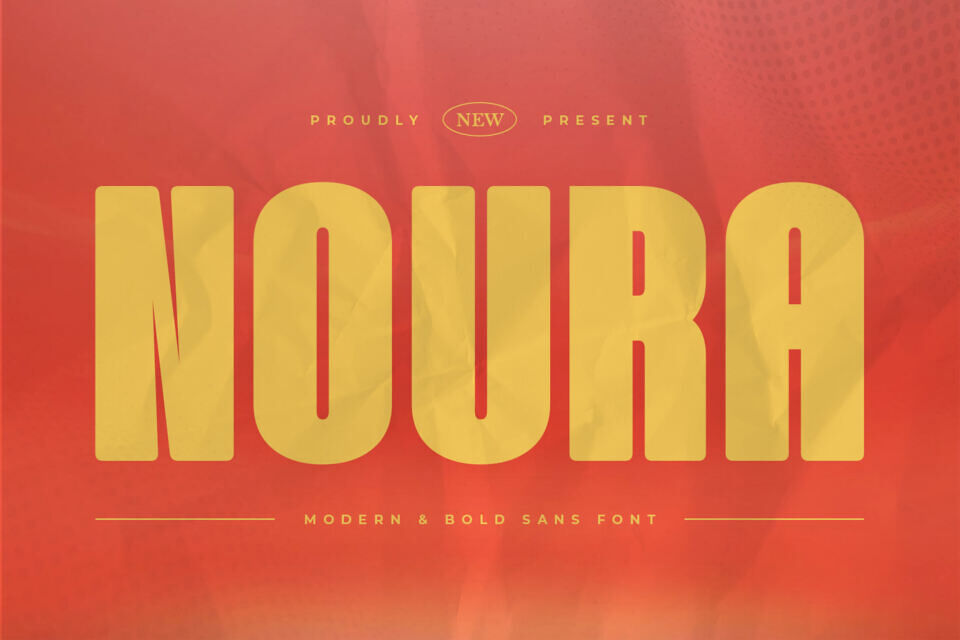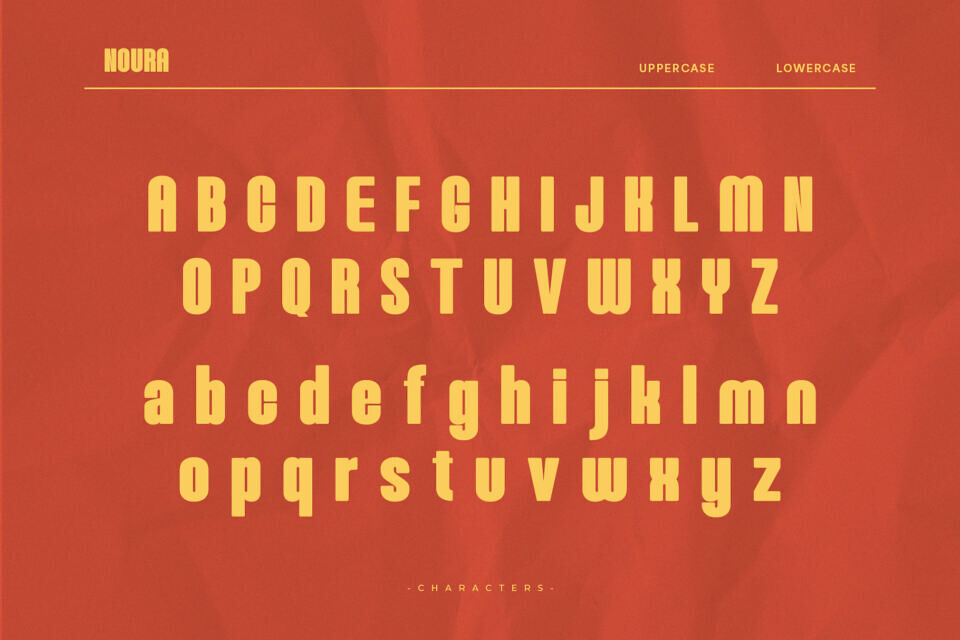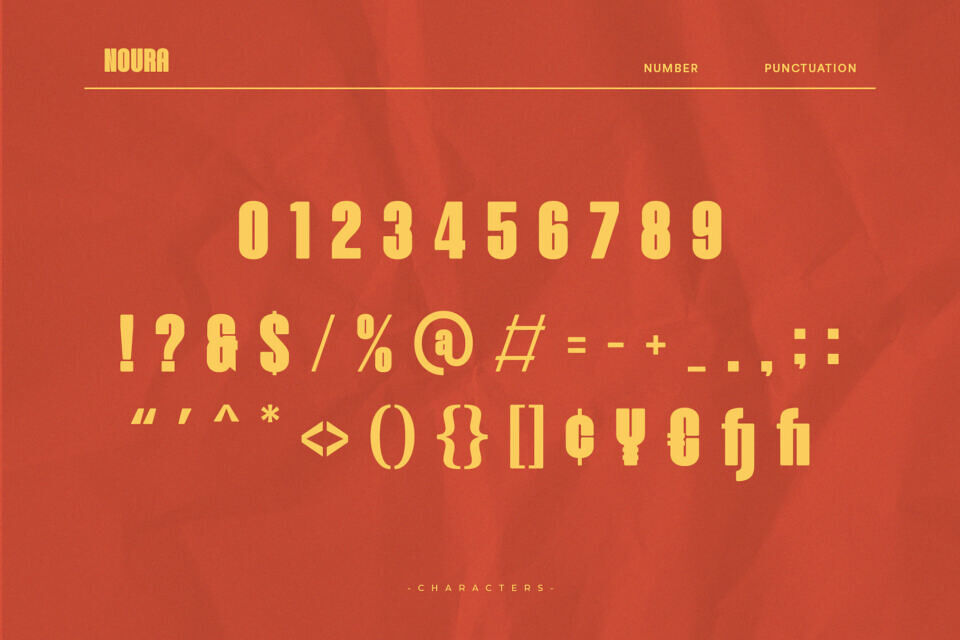
Noura Font
Noura is a sleek and elegant sans-serif typeface designed for modern branding and editorial use. Its soft edges and balanced weight bring harmony to any visual composition, making it ideal for beauty, fashion, and lifestyle designs that call for quiet sophistication.
Designed by: Almeera Studio